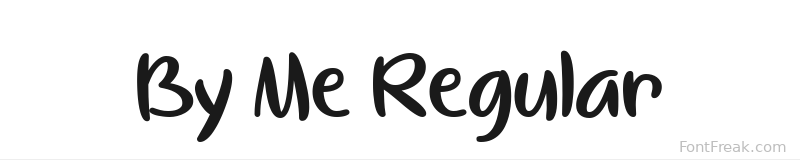
By Me Regular
About By Me Regular
By Me Regular is a charming handwritten font designed by Misti Hammers, falling into the script category. This font features a unique, casual style that mimics the flow of natural handwriting, making it both approachable and inviting. The stroke weight is consistent, with gentle curves and a playful demeanor, providing a friendly touch to any design. The letters are well-spaced, ensuring readability while maintaining the organic feel of hand-drawn lettering. Its decorative elements, such as slight flourishes on certain characters, add a whimsical flair without overwhelming the overall simplicity.
This font is particularly versatile and can be effectively used in a variety of contexts. It shines as a choice for wedding invitations, where its personal touch can enhance the sentiment of the occasion. Additionally, it works beautifully for greeting cards, capturing the warmth of personal messages. For small business owners, By Me Regular is ideal for branding materials, such as logos and promotional flyers, where a friendly and accessible image is desired. Content creators will also find it useful for social media graphics, helping to convey authenticity and relatability in their posts.
Target audiences for this font include graphic designers seeking to add a personal touch to their projects, small business owners looking to establish a unique brand identity, and content creators wanting to enhance their visual storytelling.
What sets By Me Regular apart is its ability to blend professionalism with a casual warmth, making it a favorite for those who appreciate the beauty of handwriting in digital formats. With a "By Me Regular font free download" available, accessing this delightful typeface has never been easier, allowing creatives to incorporate its unique charm into their work effortlessly.